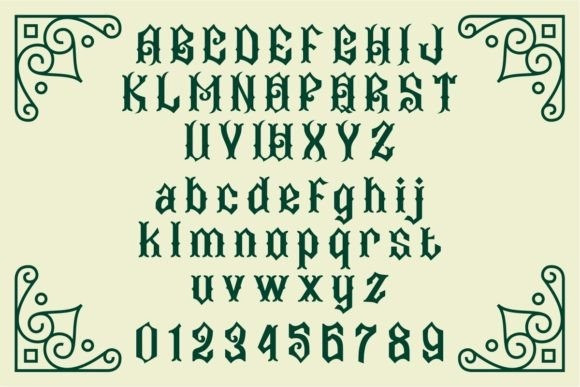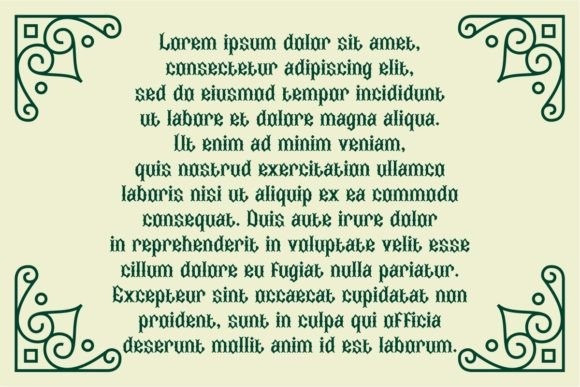
Abima Blackletter Font
Abima Blackletter Font is a bold and thick lettered blackletter font. Add it confidently to your projects, and you will love the results.